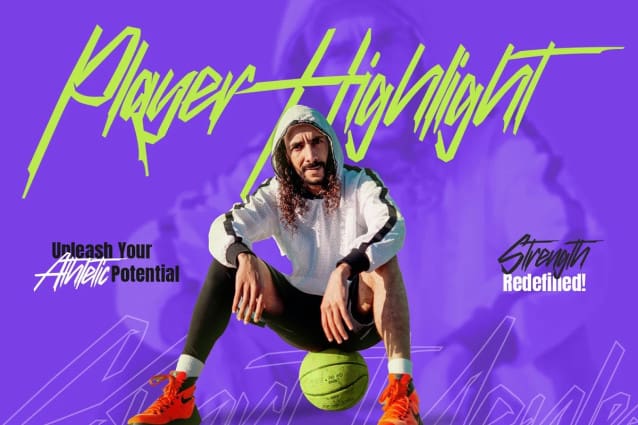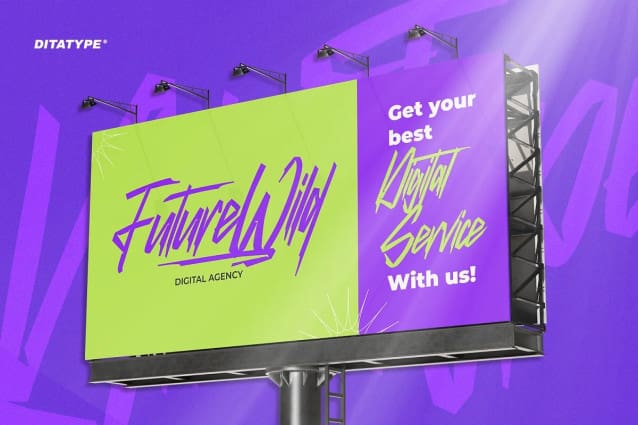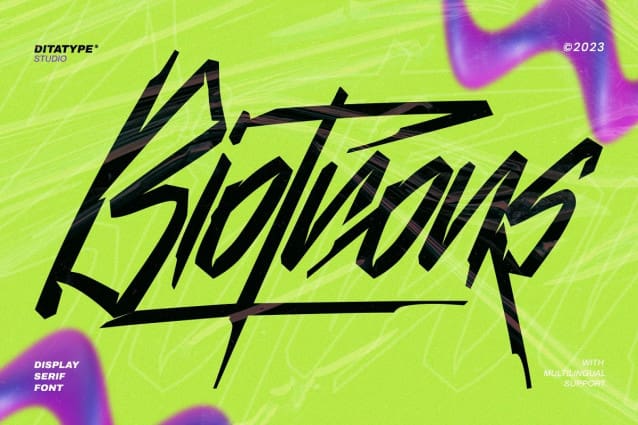
Biotrons Display Font
Biotrons Display Font is not your ordinary bold display serif font—it’s a visual powerhouse that commands attention with its unique design. This font is a daring exploration of boldness and precision, bringing a cutting-edge aesthetic to the world of script typography.
The characters in Biotrons Font are defined by their bold strokes and sharp corners, creating a strong and impactful visual presence. The deliberately uneven outlines add an element of unpredictability, giving each letter a sense of individuality and flair. Biotrons Font is a font that thrives on breaking away from the expected norms, offering a dynamic and modern take on the traditional script.